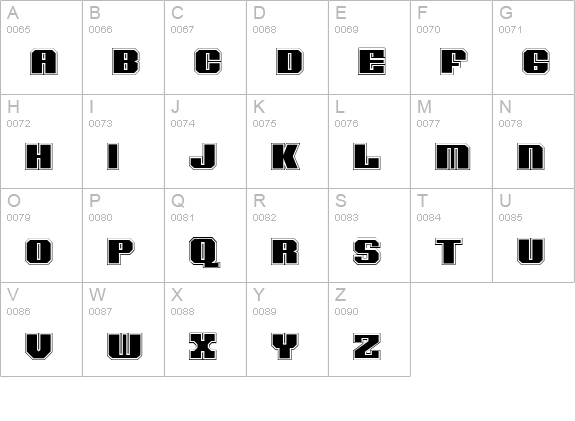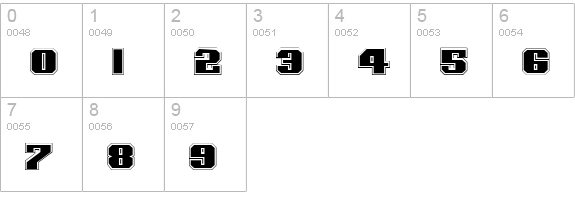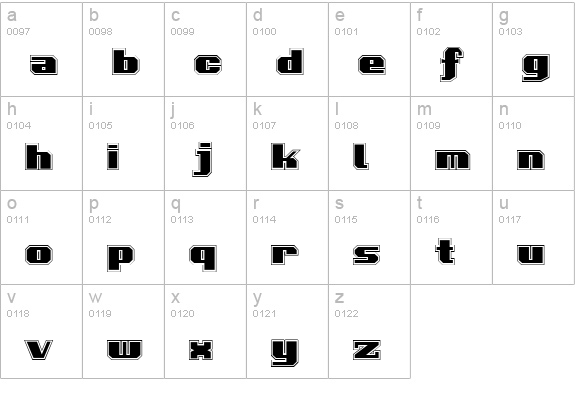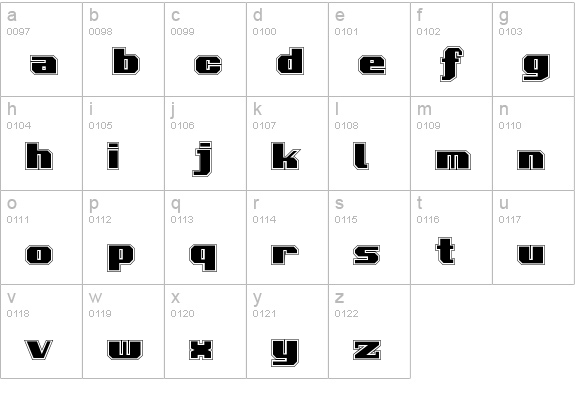
Voortrekker Pro Font Details
Voortrekker Pro font is a beautifully crafted typeface that exudes elegance and sophistication. With its clean lines and classic style, this font is perfect for a wide range of design projects, from branding to editorial design. Its versatility makes it a go-to choice for designers looking to add a touch of refinement to their work. What's even better is that Voortrekker Pro font is available for free! You can easily download this stunning font from FontsMarket.com and start using it in your projects right away. Don't miss out on the opportunity to enhance your designs with this timeless typeface without having to spend a dime. Download Voortrekker Pro font today and elevate your design game to the next level.